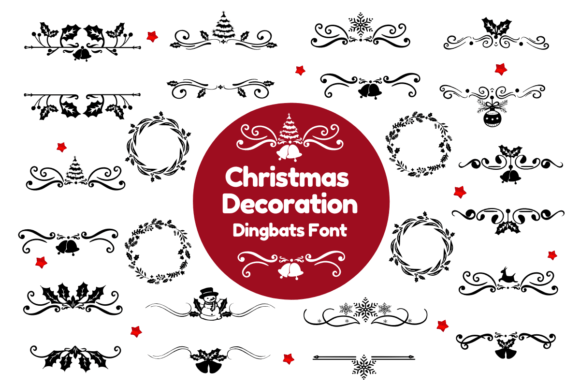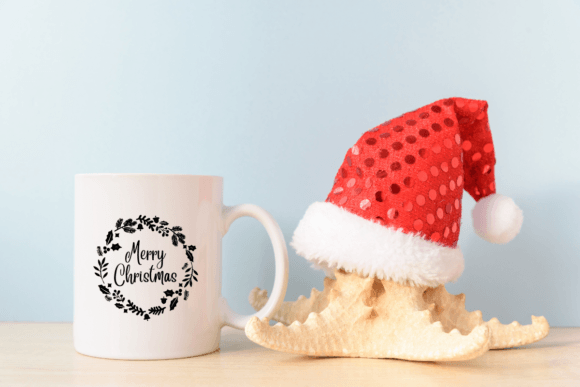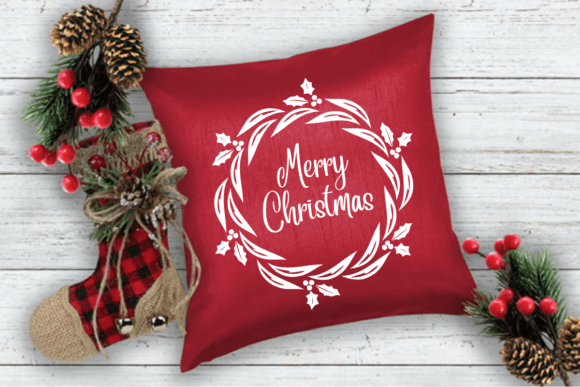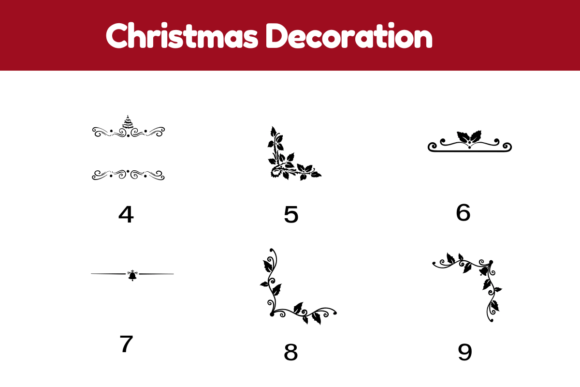
Christmas Decoration Font
Christmas Decoration is a cute dingbat font with a festive theme. This font can enhance your creative projects such as wedding invitations, DIY, crafts, decorations, logos, and many other creative ideas.